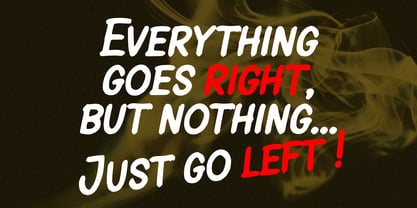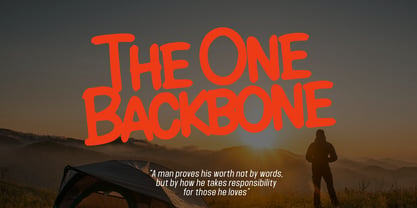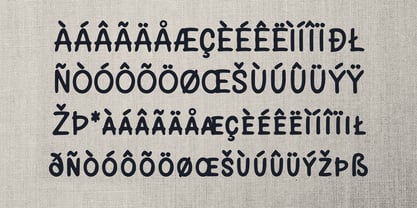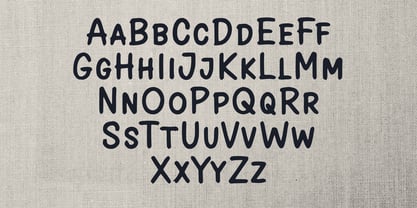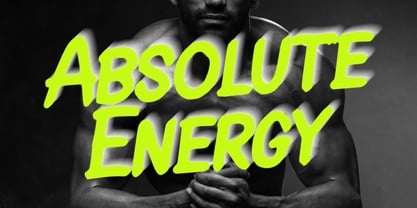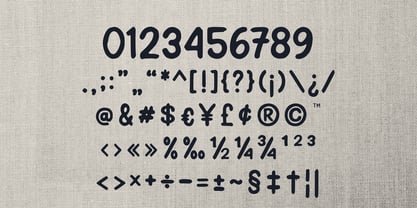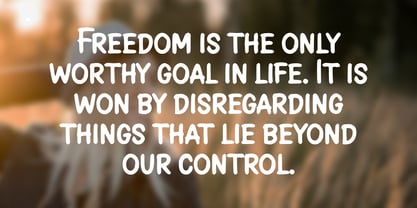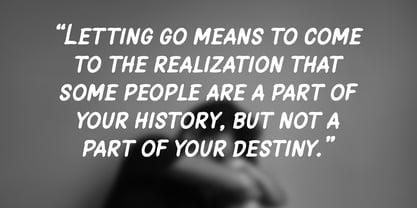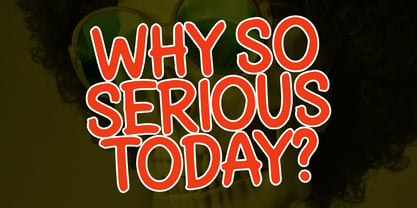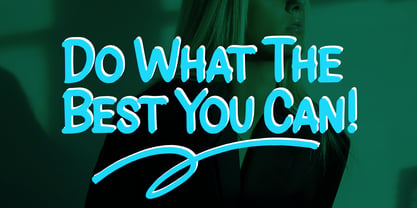
Panther Brush
Panther Brush is a bold, casual handwritten font designed to bring energy and personality to your work. Its natural brush texture and smooth strokes make it perfect for designs that need expressive feel. The font comes in Regular and Italic styles, allowing you to create contrast and rhythm across different design contexts — from branding and packaging to posters, quotes, social media graphics, and more. With its friendly curves and bold presence, Panther Brush is ideal for designers who want a handwritten look that feels both organic and confident.
Features:
• Two styles: Regular & Italic
• Uppercase & lowercase
• Numbers & punctuation
• Multilingual support
• Smooth brush texture for a natural flow
Designer: Sugi Yanto
Foundry: Sign Studio